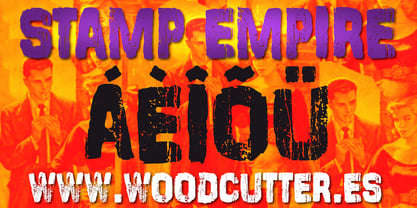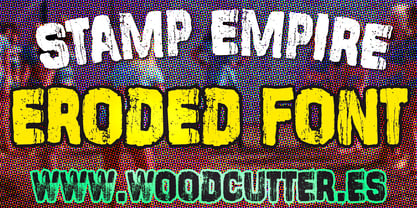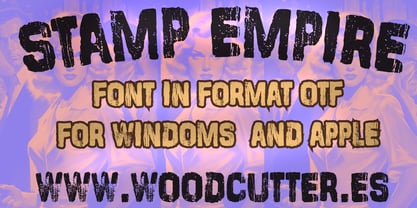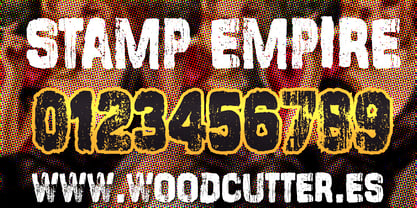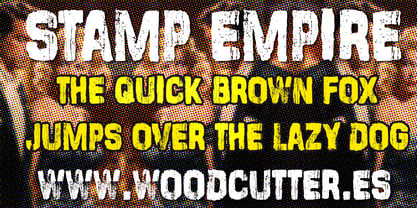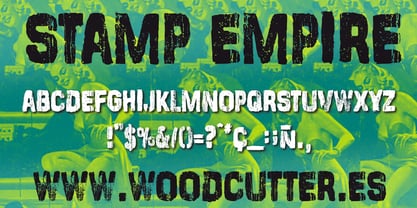
Stamp Empire
Die Schriftfamilie Stamp Empire wurde von Jordi Manero entworfen und von Woodcutter veröffentlicht. Stamp Empire enthält 1 Stile. Mehr über diese Familie
STAMP EMPIRE is an uppercase typeface with accents that looks like it has survived time, war, and abandonment. Each letter is broken, worn out, irregular, and eroded, as if stamped hundreds of times on a battered surface. With a raw, rough, and chaotic aesthetic, this font conveys brute force, decay, and rebellious energy. The characters show irregular edges, stains, cuts, and textures reminiscent of old documents, weathered street posters, or torn protest signs.
STAMP EMPIRE doesn't aim for perfection; it embraces the dirty, the flawed, the authentic. It’s perfect for graphic design projects that demand visual impact, such as political posters, punk rock covers, urban fashion branding, or underground art. Its look expresses disorder, history, and strength all at once.
Exclusively uppercase, each letter feels like it’s screaming off the page. This typeface breaks away from digital cleanliness and brings a strong emotional charge, almost violent. More than a font, it’s a graphic statement, carrying the weight of time and the grit of the streets.